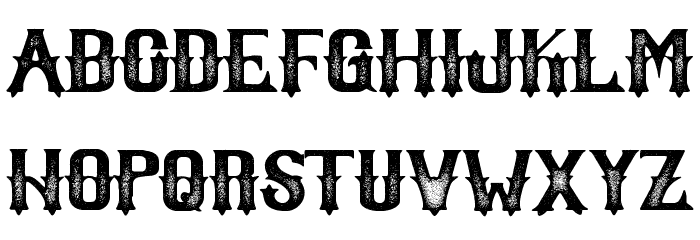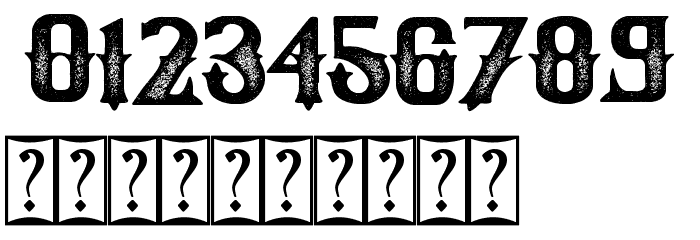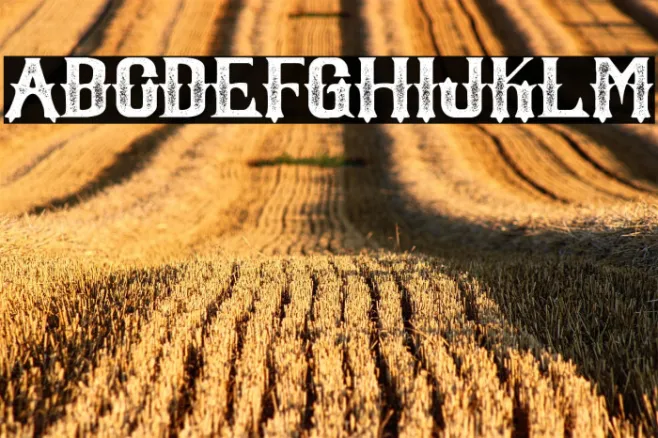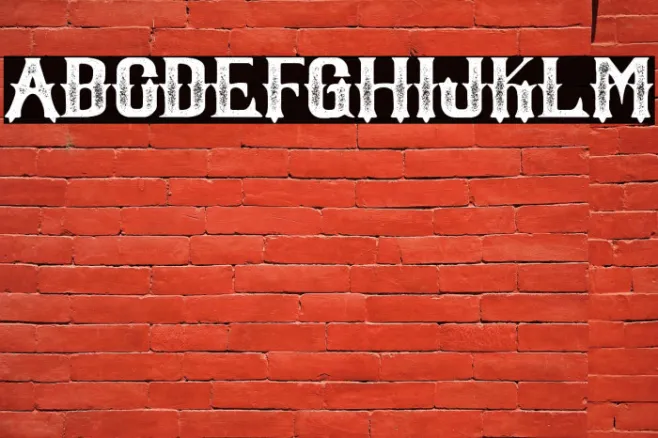
Witham Rough Font
This font features a bold, distressed style with a vintage flair. Each character is adorned with rough, textured edges that give it a weathered, antique appearance. The uppercase letters are particularly striking, with their bold presence and intricate detailing. The numbers and special characters maintain the same rugged aesthetic, ensuring consistency across all glyphs. This font's unique design makes it ideal for projects that require a touch of nostalgia or a rustic theme.
A bold, distressed font with a vintage, weathered look.
- Font: Witham Rough
- Proposed Projects: Ideal for vintage posters, rustic branding, themed events, or any project needing a historical or rugged touch.
- Overall Style: Vintage